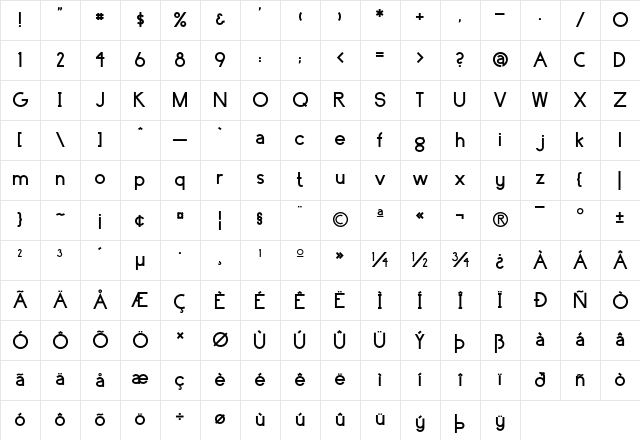
(_renaissance) Bold
Designer: NJ McLellan
Design Context for (_renaissance)
(_renaissance) is a composed and adaptable typeface that performs quietly and consistently across a wide range of design contexts. Its bold stroke weight gives it real presence on the page.